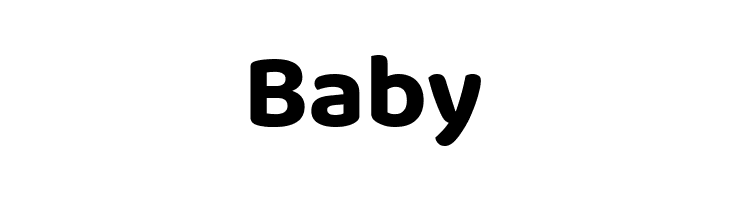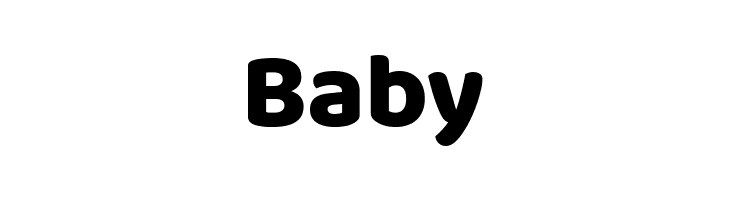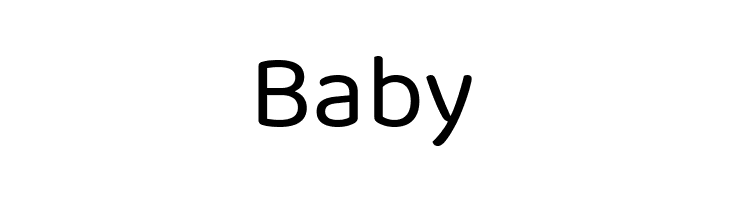
• Baloo Paaji 2 Medium
A playful, rounded font with smooth curves and a friendly appearance.
• Baloo Paaji 2 Regular
A playful, rounded font with a modern and friendly appearance.
• Baloo Paaji 2 SemiBold
A playful, rounded font with bold, smooth curves and a friendly appearance.
• Baloo Tamma 2 Bold
A bold, rounded font with smooth curves and a friendly appearance.
• Baloo Tamma 2 ExtraBold
A bold, rounded typeface with a playful and friendly appearance.
• Baloo Tamma 2 Medium
A friendly, rounded font with a modern and approachable design.
• Baloo Tamma 2 Regular
A playful, rounded font with smooth curves and a modern feel.
• Baloo Tamma 2 SemiBold
A playful, rounded font with smooth curves and a friendly, modern appearance.
• Baloo Tammudu 2 Bold
A bold, rounded, and friendly font with a modern aesthetic.
• Baloo Tammudu 2 ExtraBold
A bold, rounded, and playful font with a modern and friendly appearance.